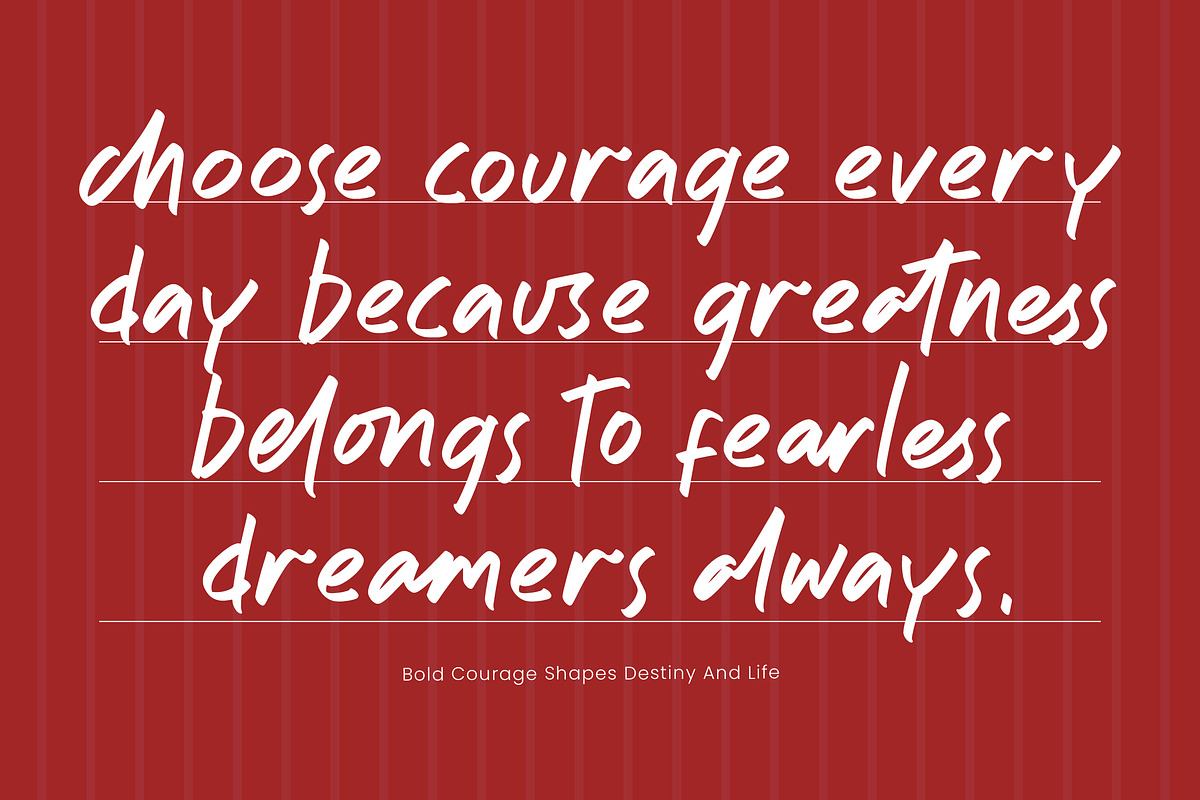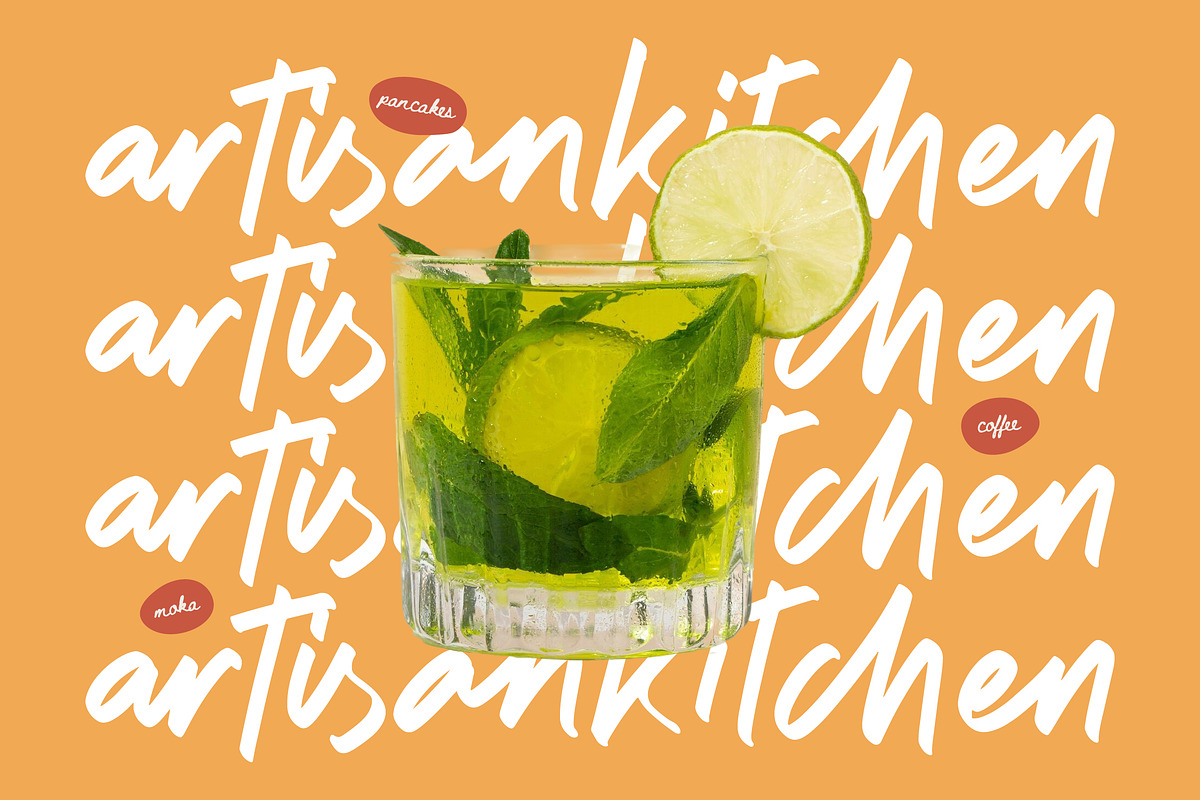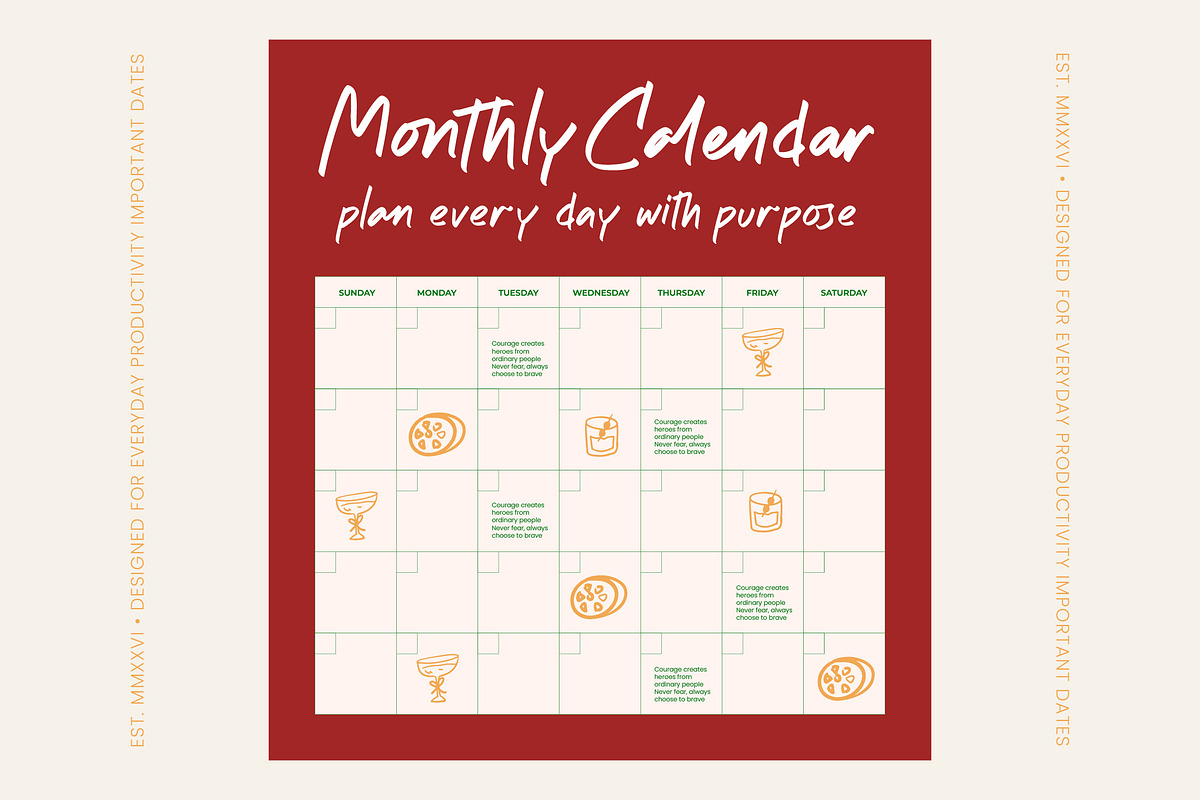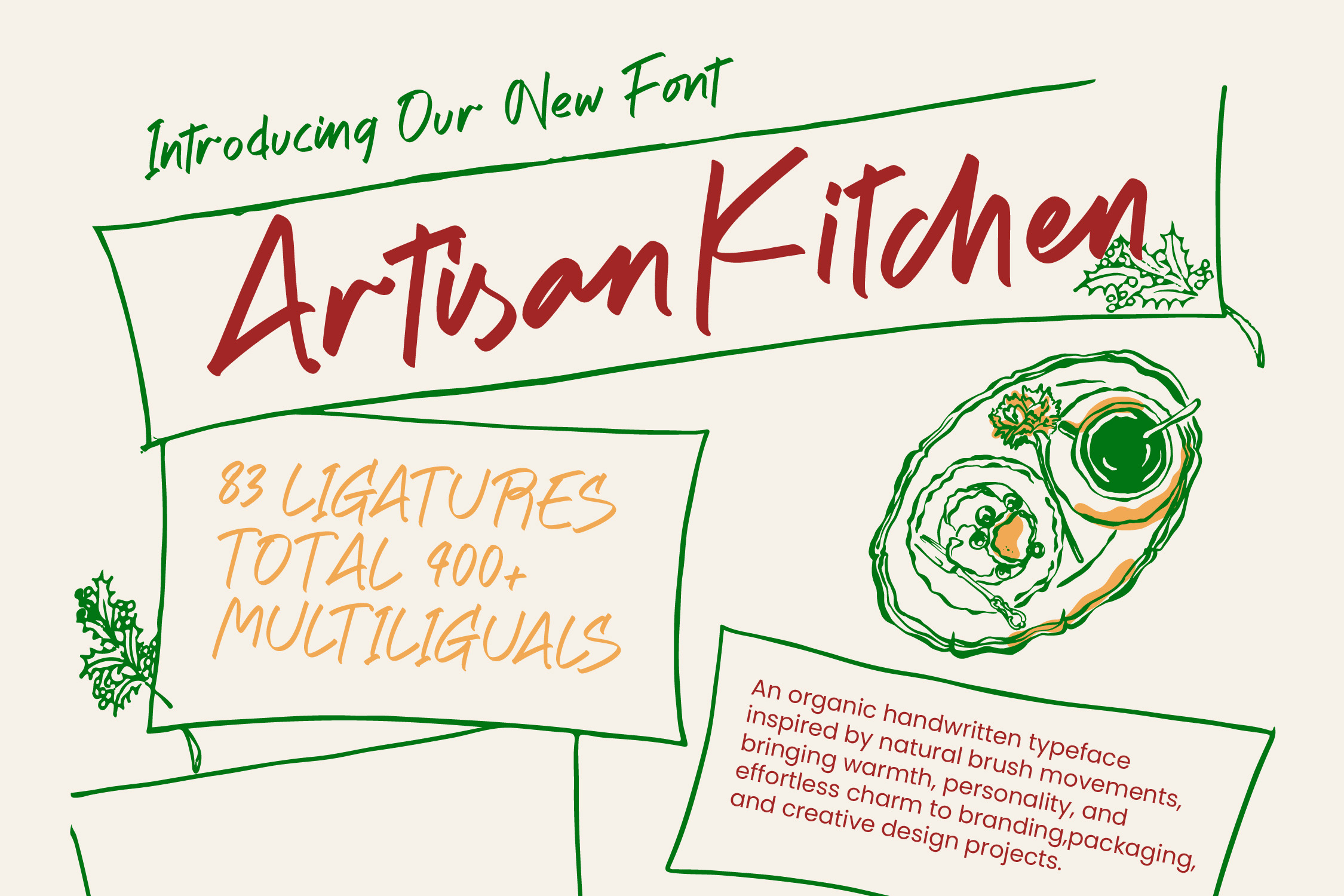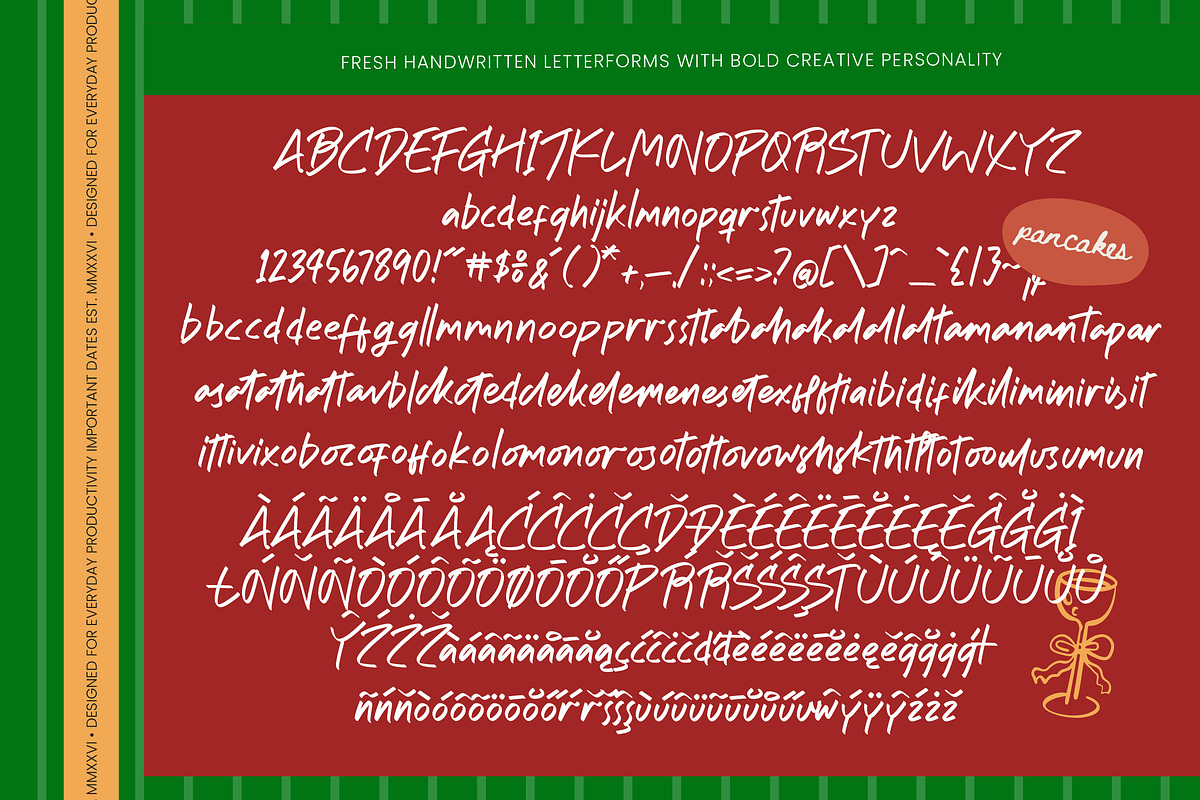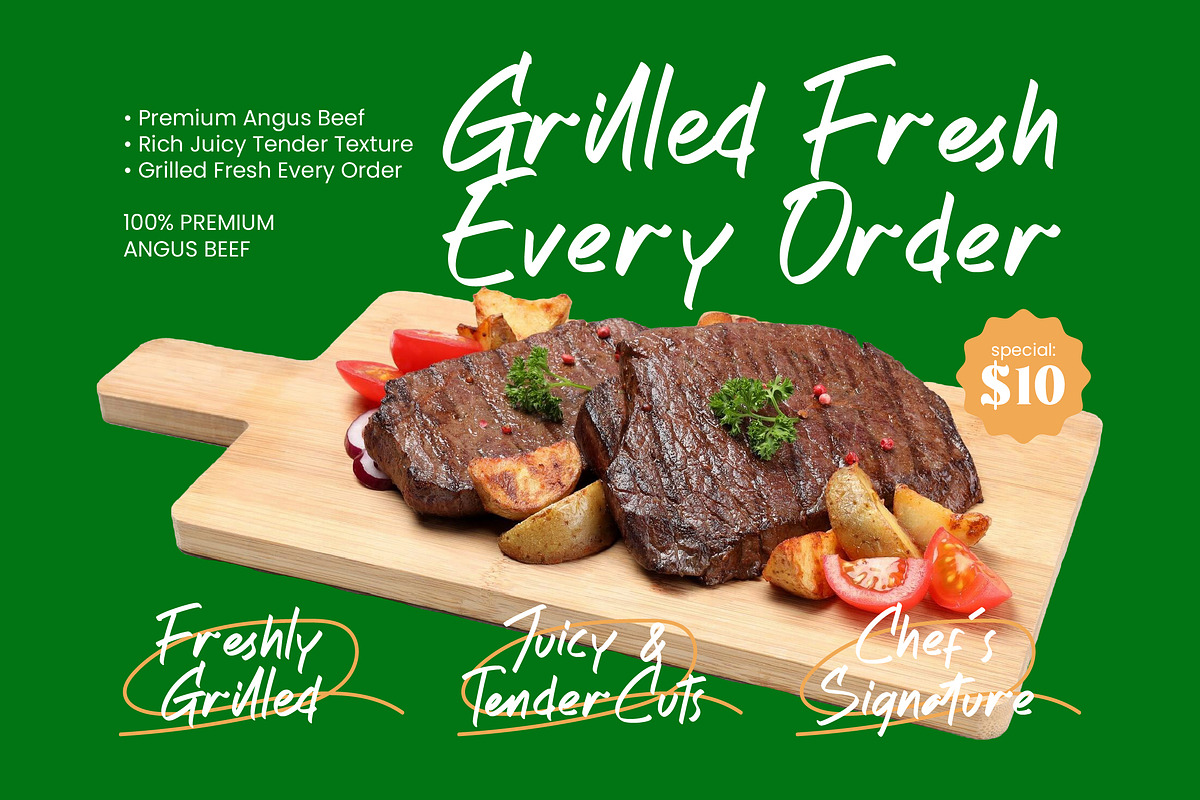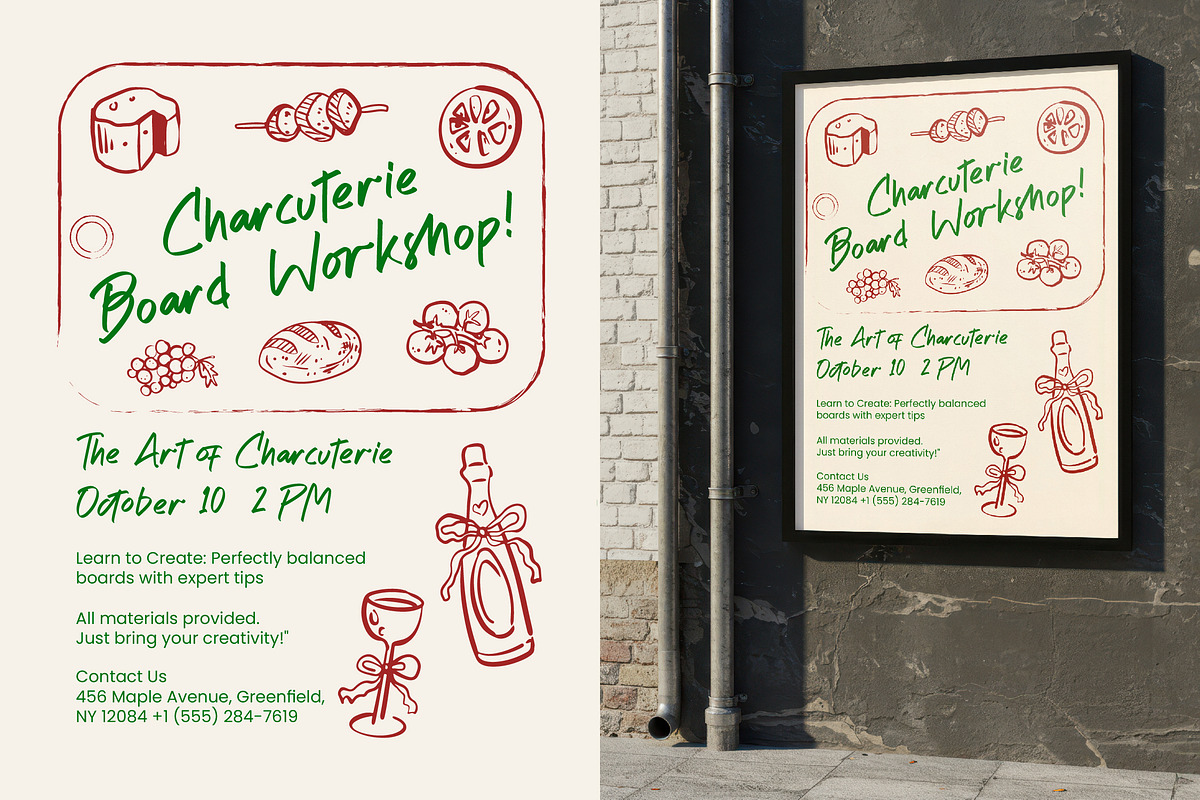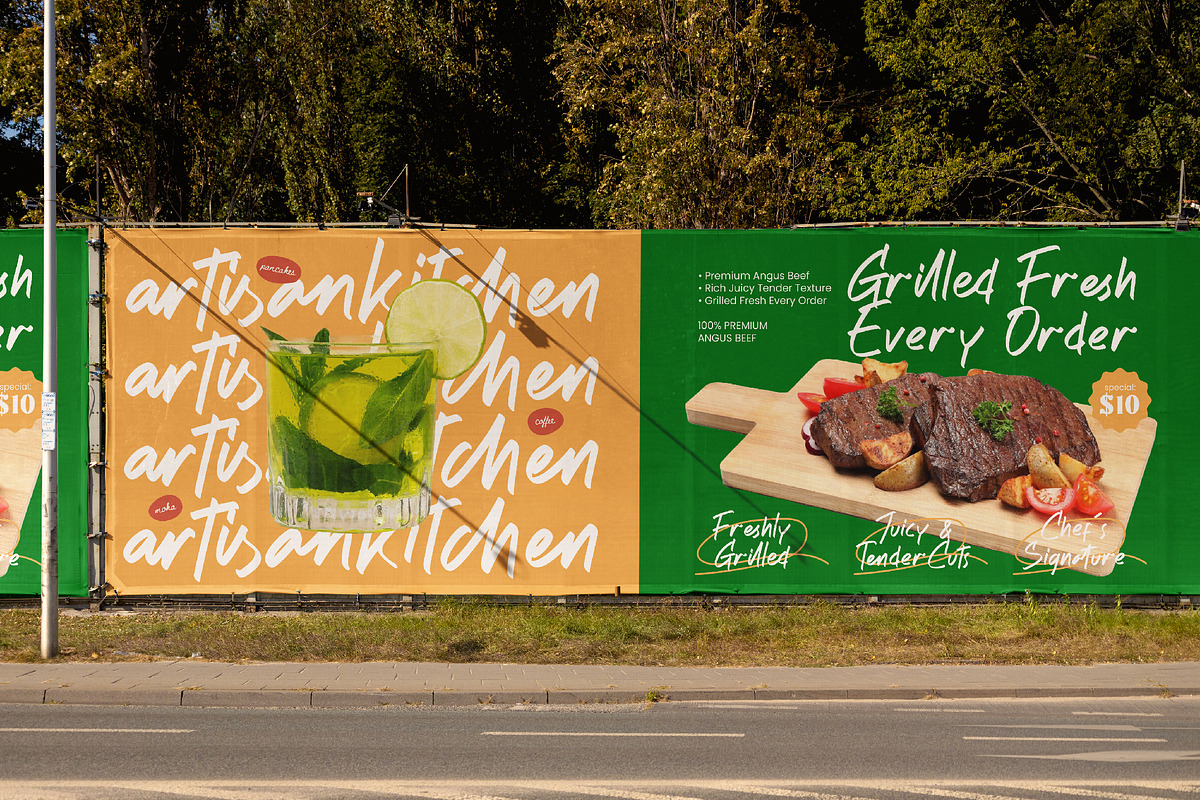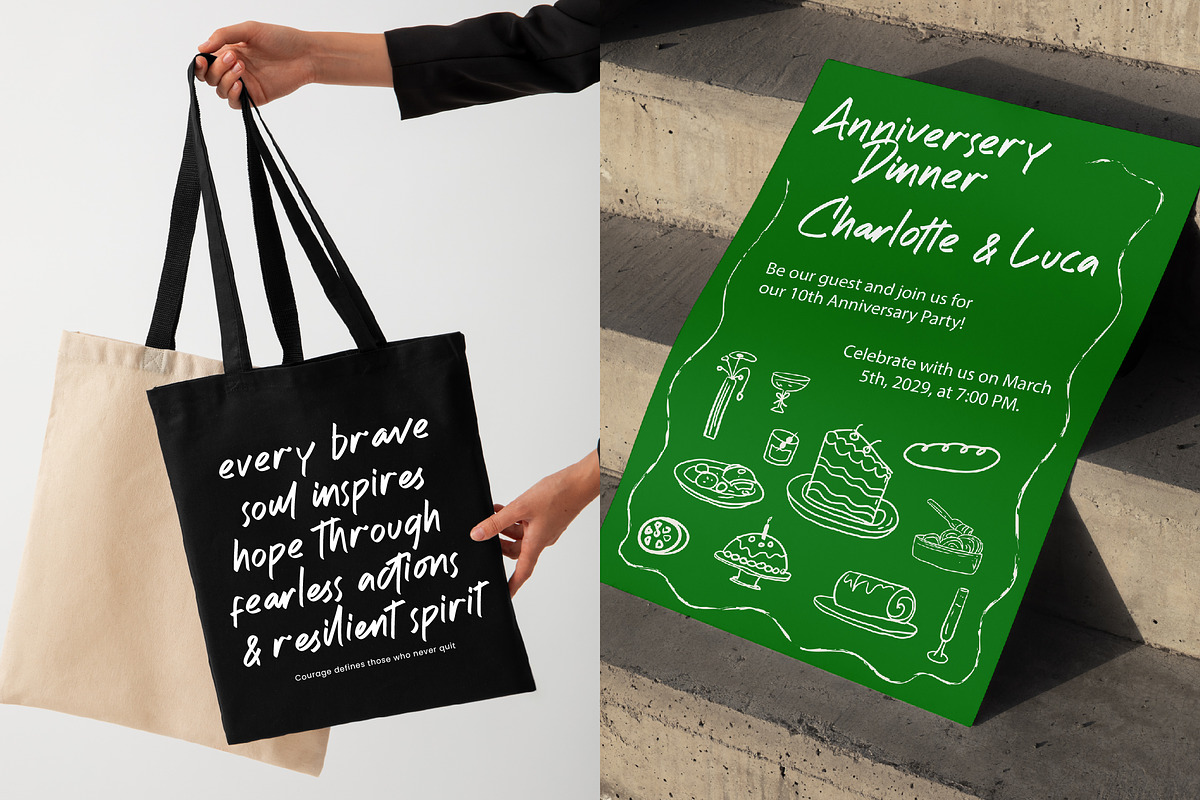
Artisan Kitchen Handwritten Font
Artisan Kitchen - Handwritten Font , Elevate your creative projects with the organic elegance of Artisan Kitchen - Handwritten Font, a typeface designed to capture the authentic spirit of natural brush movements. This handcrafted aesthetic brings an immediate sense of warmth and personality to any layout, bridging the gap between professional design and human-centric artistry. Its fluid strokes and effortless charm make it an essential tool for creators seeking a high-quality, organic typeface that feels both contemporary and timeless.
Perfectly suited for boutique branding and premium packaging, Artisan Kitchen - Handwritten Font excels in environments where authenticity is paramount. It is the perfect solution for hospitality menus, editorial design, and luxury lifestyle labels that require a personalized, bespoke touch. Whether utilized for social media graphics or custom stationery, this font adds a layer of rustic sophistication that resonates deeply with modern, discerning audiences.
With its extensive multilingual support, Artisan Kitchen - Handwritten Font adapts seamlessly across global markets, making it incredibly versatile for international projects. Featuring over 400 glyphs and 83 unique ligatures, the font ensures consistent typographic excellence regardless of the language or regional requirements. This global adaptability empowers brands to maintain a unified and cohesive visual identity while expanding their commercial reach into diverse international territories with absolute confidence.
Transform your visual storytelling with a premium typeface that balances artistic flair with functional readability. By choosing Artisan Kitchen - Handwritten Font, you are investing in a versatile design asset that offers unmatched flexibility and professional-grade quality for any medium. Secure this distinctive handwritten font today to bring a genuine, hand-painted feel to your next high-impact marketing campaign or signature brand identity project.